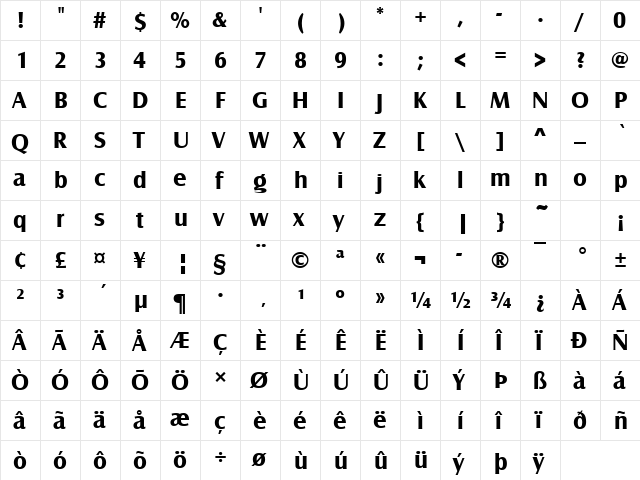
Castle Becker Bold
Design Context for Castle Becker Typeface
Castle Becker offers clean, dependable letterforms without strong stylistic allegiance, making it a practical choice for designers who need flexibility. The heavy weight commands attention and anchors typographic hierarchies.